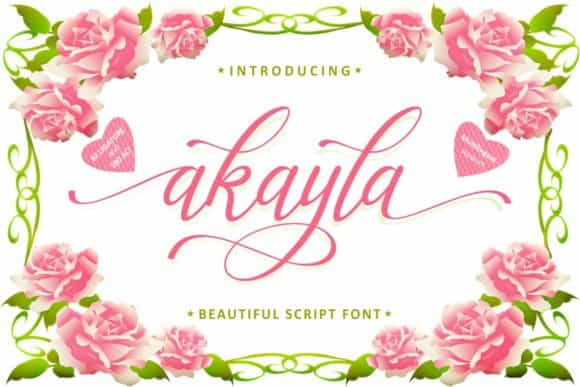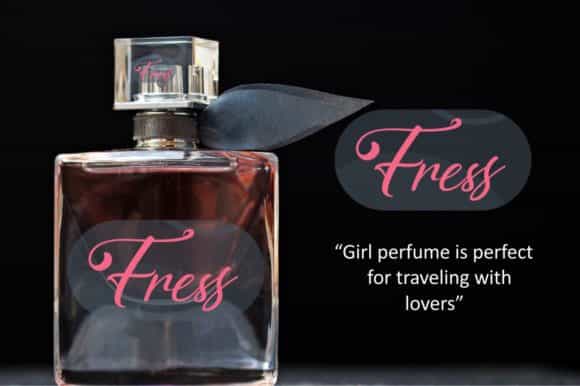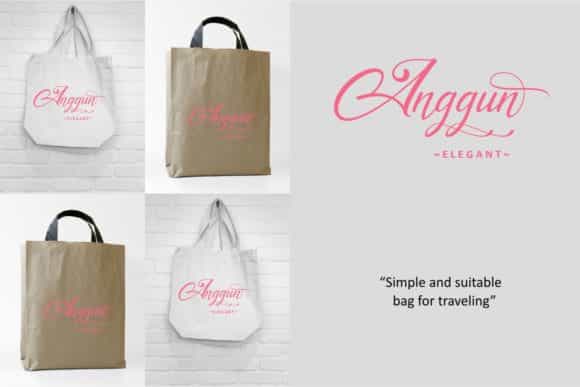
Akayla is a beautiful script font with swashes that is also equally versatile with PUA encoding. This is the perfect typeface for any crafting project that needs a touch of the romantic theme.